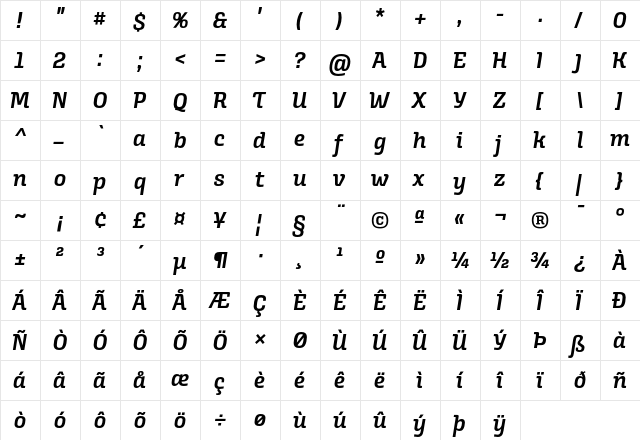
Alianza Italic 600
| Foundry | Manuel Corradine - Sergio Ramirez |
| Designer | Manuel Corradine - Sergio Ramirez |
Design Context for Alianza Italic Typeface
Alianza Italic takes a measured approach to typography — its balanced proportions and neutral character make it a reliable workhorse for both digital and print work. Its italic angle brings a sense of urgency and motion to the letterforms.
Pro Tip: Use Alianza Italic for emphasis, pull quotes, and subheadings where its slanted energy can add rhythm to the layout.